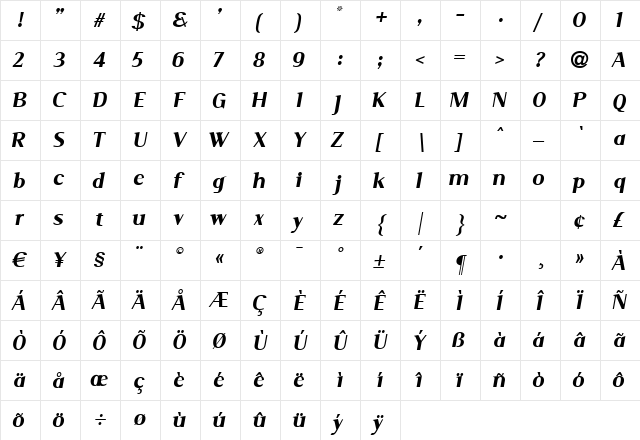
Serif Medium Italic Font Preview
Serif Medium Italic
Serif Medium Italic Font Details
| Style | Medium Italic |
Design Context for Serif Typeface
Serif carries the refined structure of traditional serif typography, with bracketed terminals and considered proportions that communicate credibility and craft. The dynamic lean of this cut emphasises speed and emphasis in any layout.